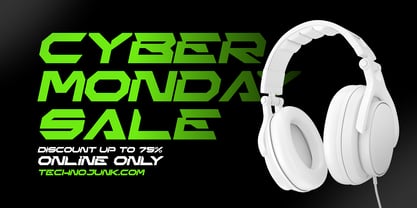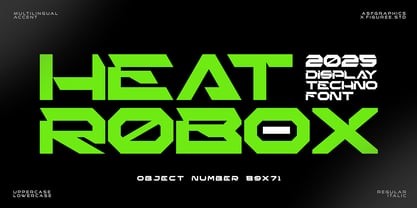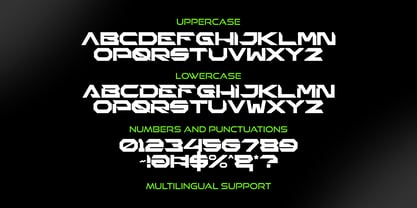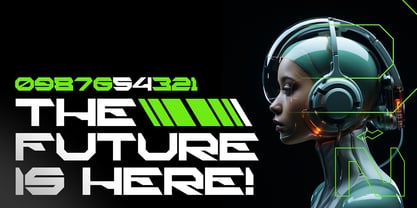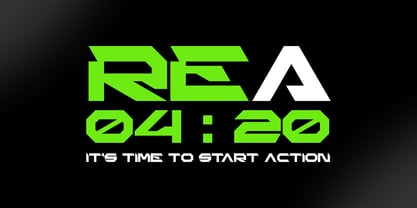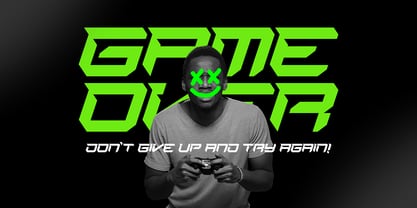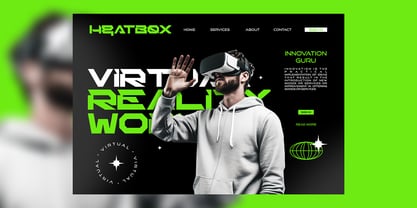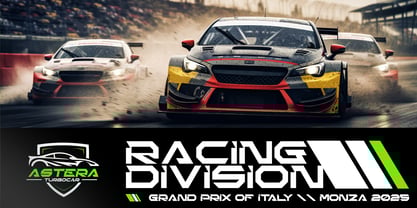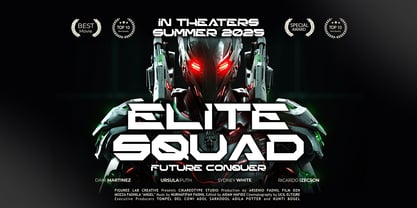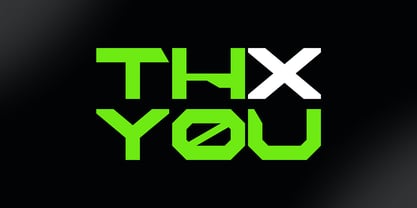
Heat Robox
by Figuree Studio
The Heat Robox Font Family was designed by Icep Anwar Fadhil and published by Figuree Studio. Heat Robox contains 2 styles and family package options. More about this family
🚀 Heat Robox – The Ultimate Futuristic Display Font 🔥
Step into the future with Heat Robox, a bold, cutting-edge, futuristic display font designed to give your projects a high-tech, cybernetic, and sci-fi edge! With its sharp angles, sleek geometry, and modern digital aesthetics, Heat Robox is perfect for tech branding, gaming, esports, sci-fi movie titles, and innovative designs.
Whether you're crafting futuristic logos, neon-themed posters, high-tech interfaces, or next-gen product packaging, Heat Robox adds a sleek, powerful, and electrifying touch that makes your work stand out.
💥 Why Choose Heat Robox?
✅ Futuristic & High-Tech – Perfect for sci-fi, gaming, and cyberpunk themes.
✅ Sleek & Geometric – Modern, digital letterforms with sharp precision.
✅ Bold & Eye-Catching – Designed for high-impact visuals.
✅ Versatile & Dynamic – Ideal for branding, posters, UI/UX, and digital graphics.
✅ Multilingual Support – Covers multiple languages for global use.
✅ Complete Character Set – Includes uppercase, lowercase, numbers, punctuation, and symbols.
💡 Perfect for:
🎮 Esports & Gaming Titles
🤖 Sci-Fi & Cyberpunk Graphics
🔵 Tech Branding & Logos
📺 Movie Titles & Trailers
💻 High-Tech UI/UX & Web Designs
Designers: Icep Anwar Fadhil
Foundry: Figuree Studio